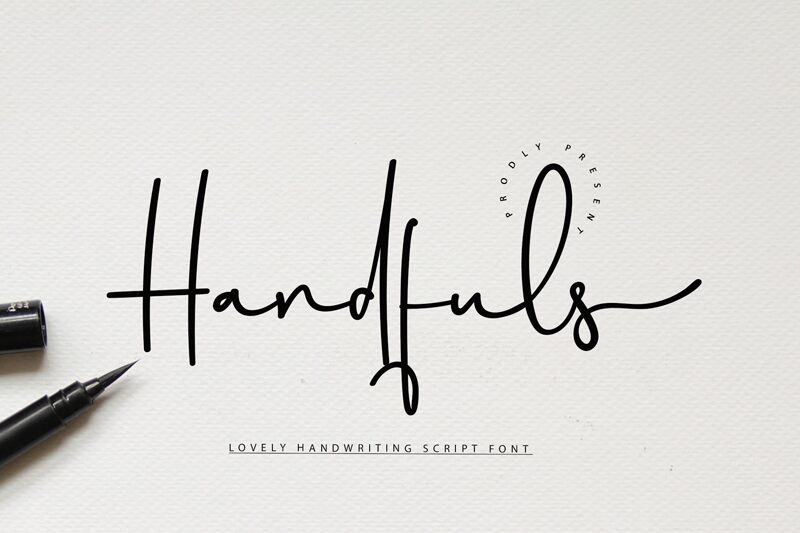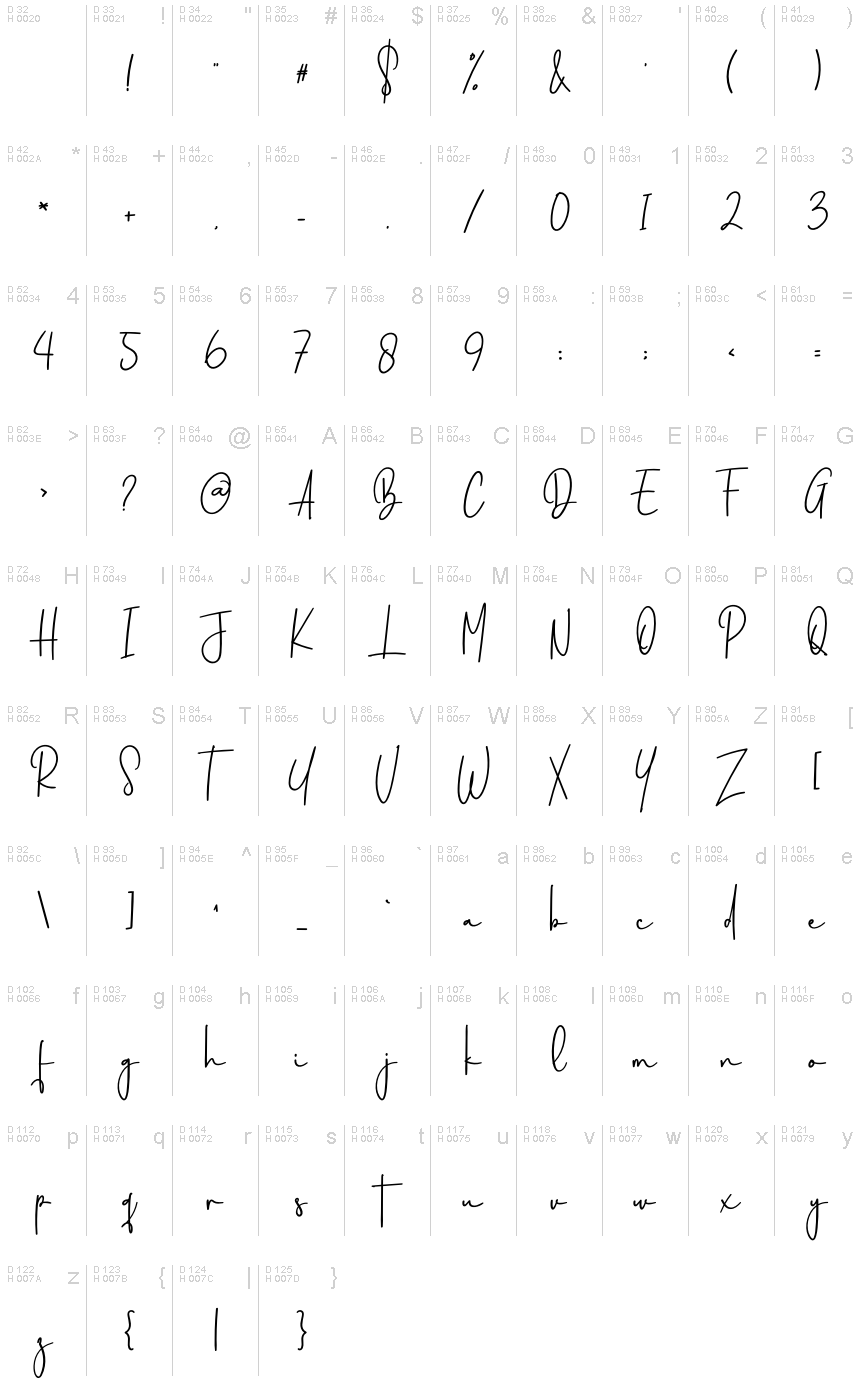
Handfuls
Handfuls is a captivating handwritten font crafted by Creatype Designer. This light, condensed script retains a classy calligraphic influence, exuding a contemporary and fresh vibe. Its dynamic strokes and elegant flourishes create a signature-like aesthetic, lending an alluring, personal touch to any design.
The versatility of Handfuls makes it a versatile choice for a wide range of creative applications. From impactful titles and headers to charming stationery and personal branding, this font's unique characteristics will elevate the visual appeal of your projects, capturing attention and conveying a sense of sophistication and modernity.